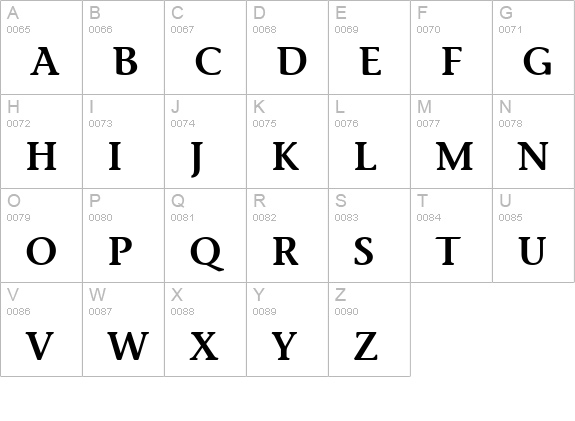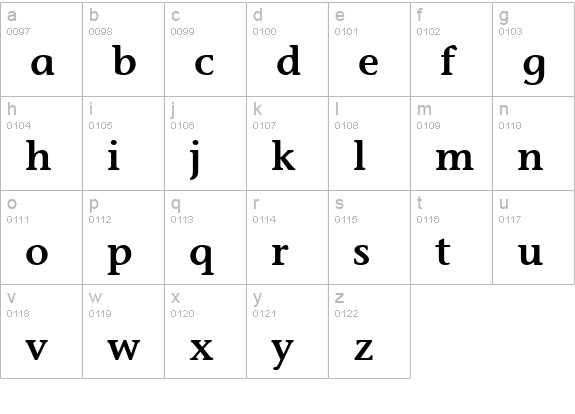
Mesouran Casual SSi Semi Bold is a strong, high-contrast variant in the Mesouran typeface family \xE2\x80\x94 well suited to headlines, attention-grabbing titles, and strong calls-to-action.
Mesouran Casual SSi Semi Bold font is a versatile and modern typeface that exudes a sense of casual elegance. Its semi-bold weight strikes the perfect balance between making a statement and maintaining readability. The clean lines and subtle curves of this font make it suitable for a wide range of design projects, from logos and branding to marketing materials and web design. What sets Mesouran Casual SSi Semi Bold font apart is its unique blend of sophistication and approachability. It adds a touch of style and personality to any project, while still remaining professional and easy to read. Whether you're looking to create a sleek and modern look or a more laid-back and friendly vibe, this font has you covered. And the best part? Mesouran Casual SSi Semi Bold font is completely free to download at FontsMarket.com. So you can add this versatile and stylish typeface to your design arsenal without breaking the bank. Don't miss out on the opportunity to elevate your designs with this beautiful and free font today!